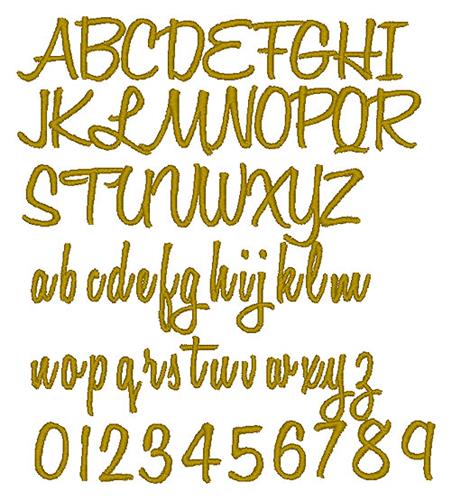
Fireside Threads is happy to present Honey Script Embrilliance machine embroidery font which has Flowing script machine embroidery font with a handwritten look, ideal for personal projects on cushions. Offered in BX font and compatible with Embrilliance software. included. If you would like to view more embroidery fonts and alphabets please search our embroidery fonts page.